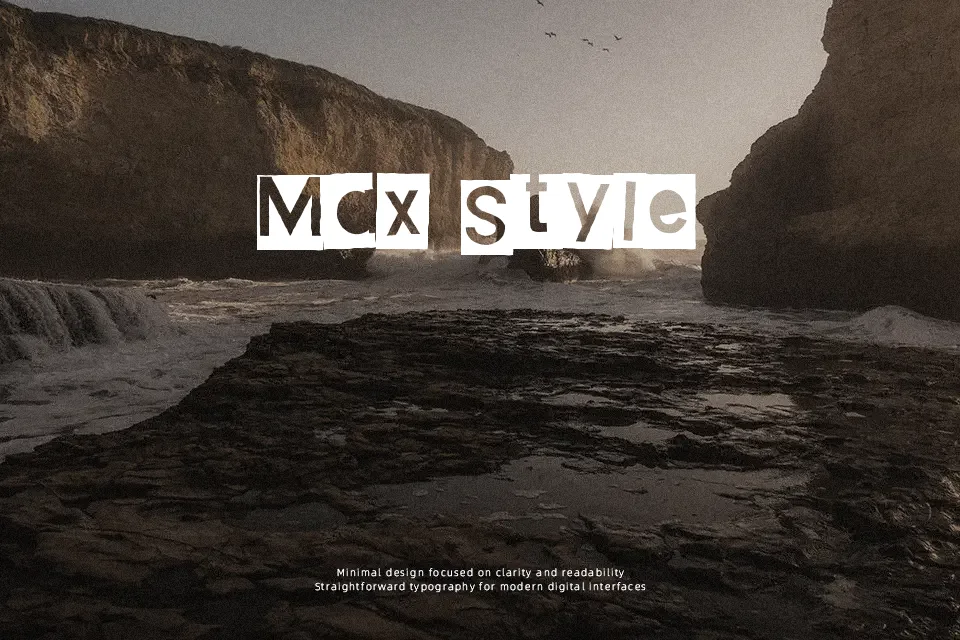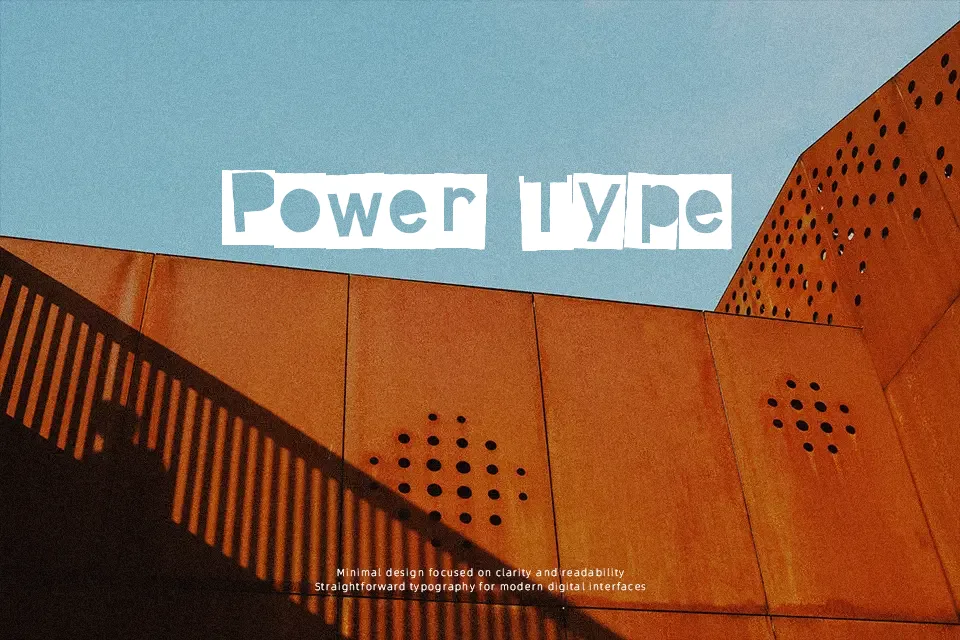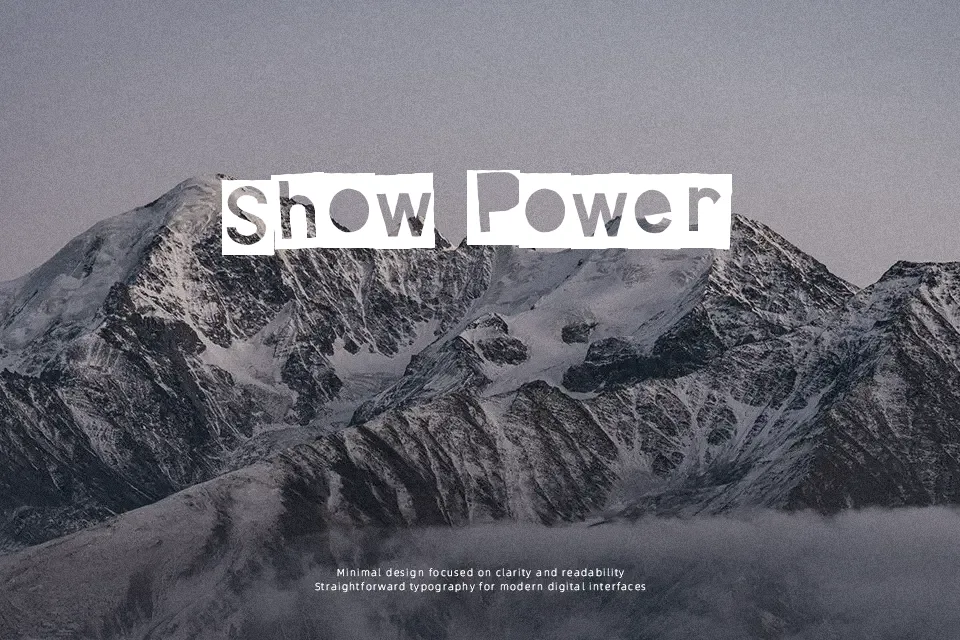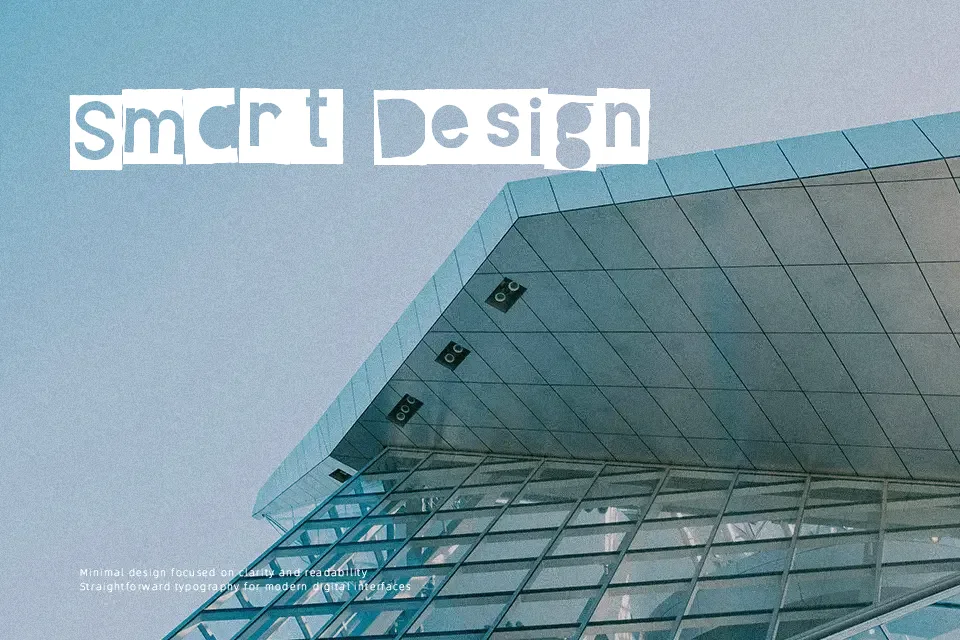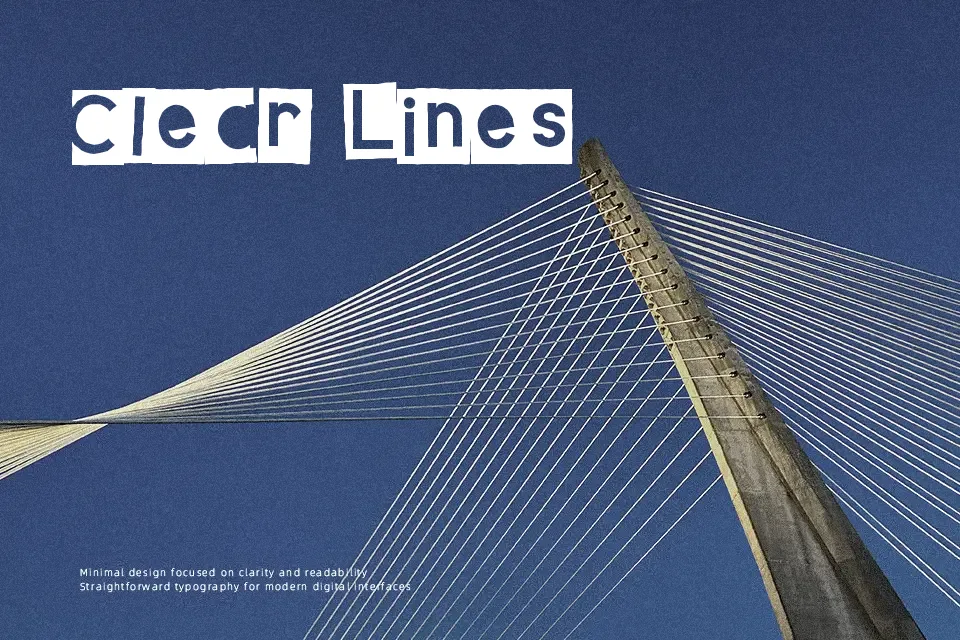
All The Box Font
Designed by VinType
Each character in All The Box sits inside a raw, irregular block frame — strokes feel deliberately fragmented, and the stark negative-space construction gives the whole face a deconstructed, high-contrast punch. The spacing is unconventional, which reinforces its scrapbook-cut personality rather than feeling like a typographic oversight. It reads well at large display sizes, making it a legitimate option for music event posters, alternative fashion headers, and retro-inspired branding campaigns. That said, the distorted structure collapses quickly at small sizes — any use below 24pt risks legibility. It also lacks stylistic range; the single weight means you can’t modulate visual hierarchy within a layout using the font alone.
– Music event and concert poster headlines
– Alternative fashion brand headers
– Retro or vintage editorial covers
– Packaging for indie or creative lifestyle products
– Body text or extended reading
– Corporate identity or formal documents
– Multilingual layouts requiring broad character support
– Digital UI where small-size legibility is critical
Perfect for branding, editorial, and fashion, with a bold and decorative style.